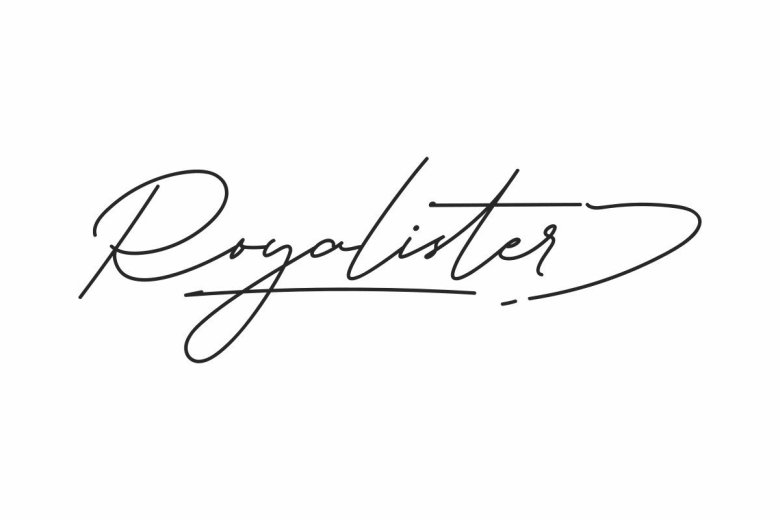
Royalister Font
Royalister Signature Font is a signature handwriting font. Originally made in 2020 by NihStudio Font Designer : Saeful and Suci. Royalister will be great for any projects (require extended license) including : branding, logo, stationery, business card, signage, flyer, brochure etc.